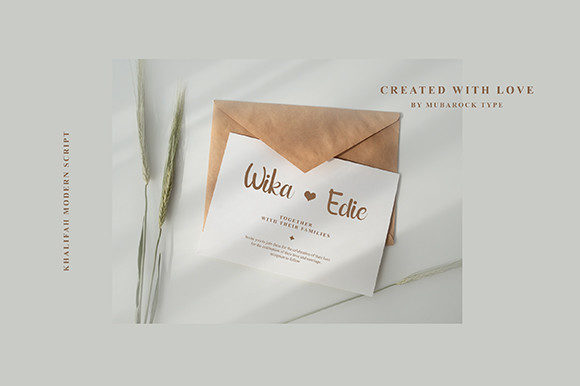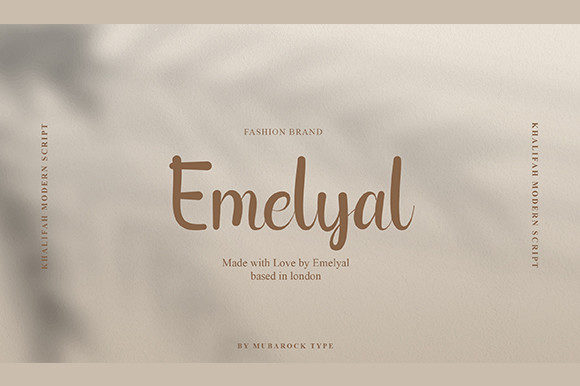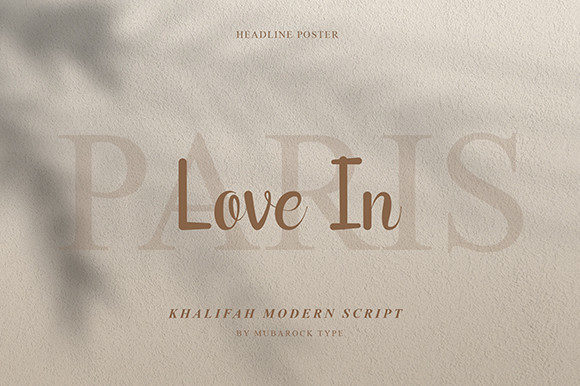
Khalifah Font
About Khalifah Font
Khalifah is a lovely script font featuring charming, playful characters that seem to dance along the baseline. This font is specially crafted for those who need a beautiful and refreshing look to their designs. Add this font to your most creative ideas, and notice how it makes them stand out!